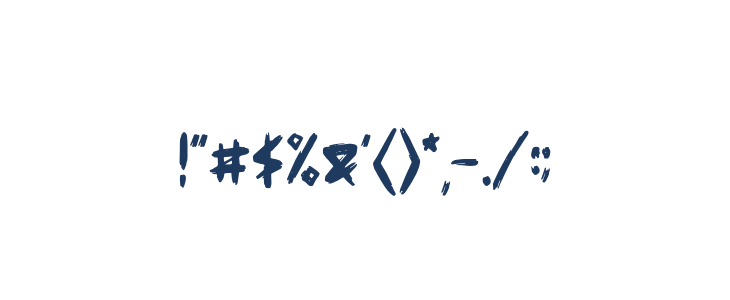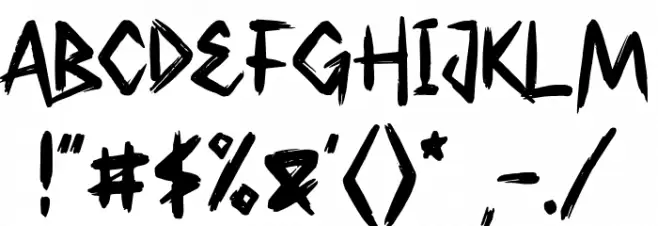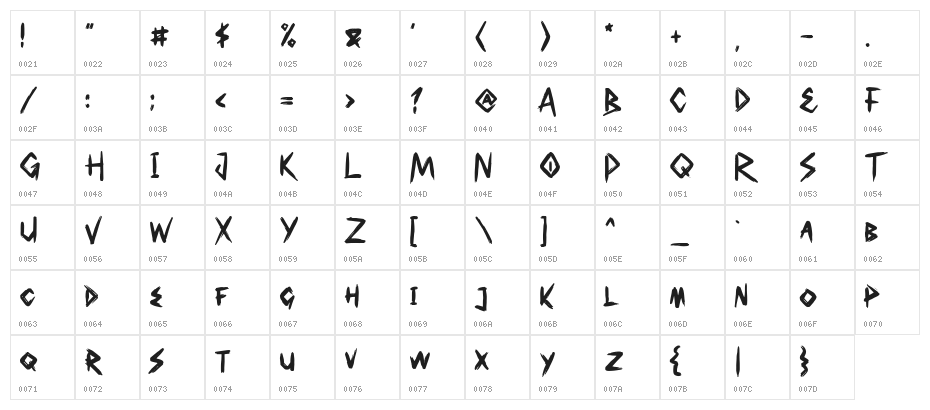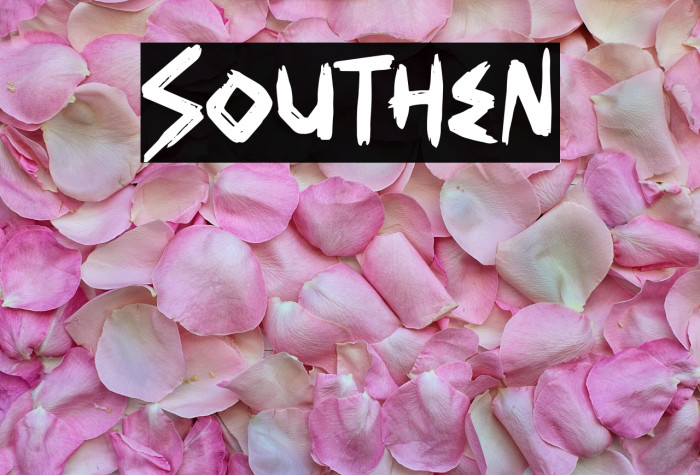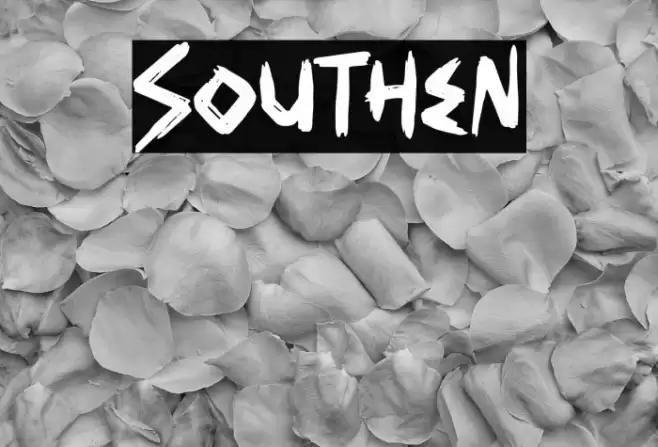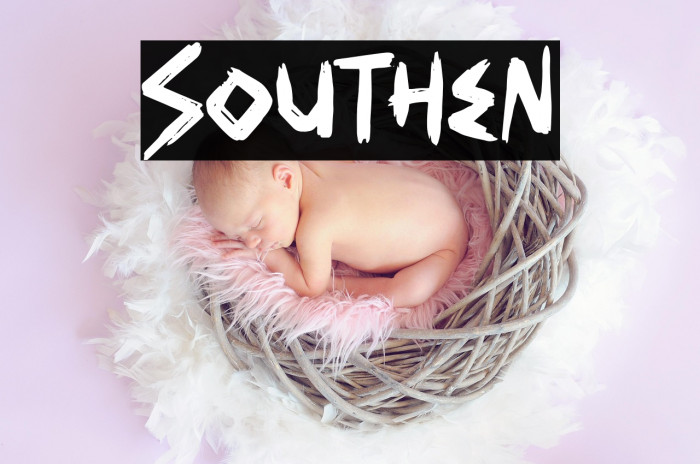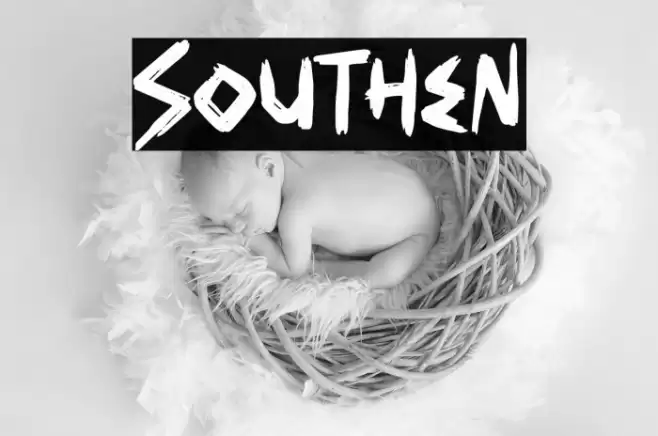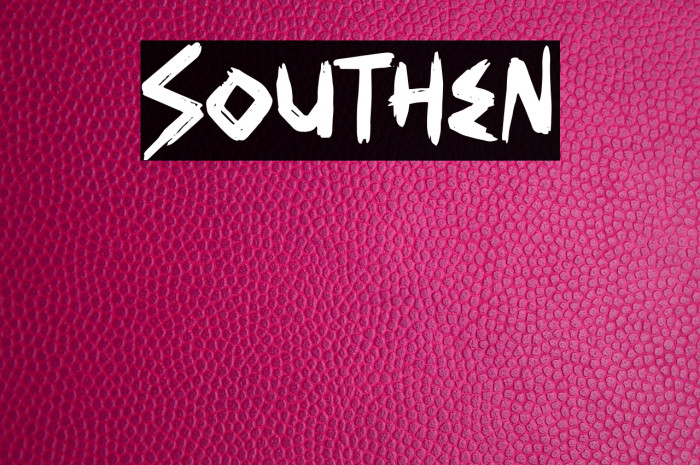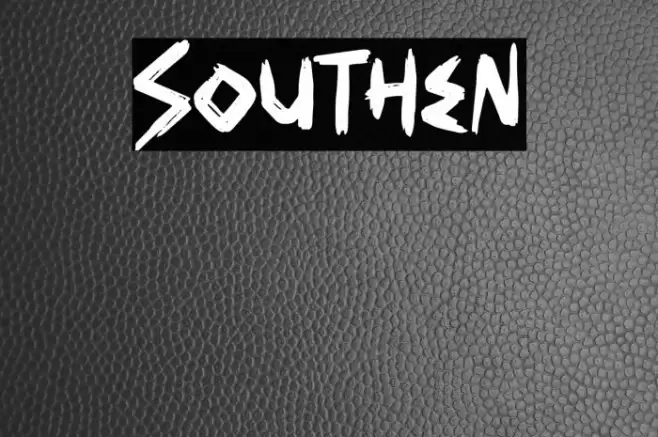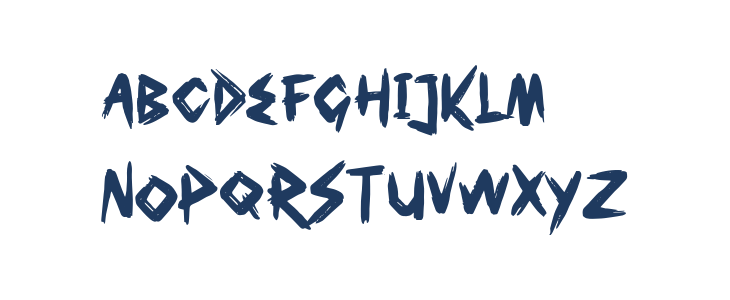
Southen Font
Southen Description
This font features a bold and dynamic brush style, characterized by its sharp edges and irregular strokes that give it a raw, energetic feel. The letters are slightly slanted, adding a sense of movement and urgency. The uppercase and lowercase letters maintain a consistent style, with a rough texture that mimics hand-painted lettering. The numbers and special characters follow the same aesthetic, ensuring a cohesive look across all text elements. This font is ideal for projects that require a bold statement or a creative, artistic touch.
| Proposed Projects | Ideal for posters, album covers, streetwear branding, and creative advertising campaigns. |